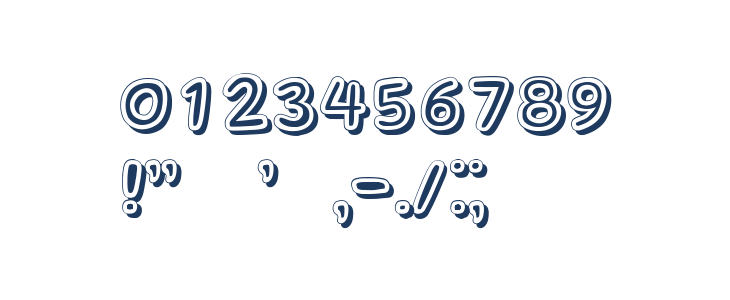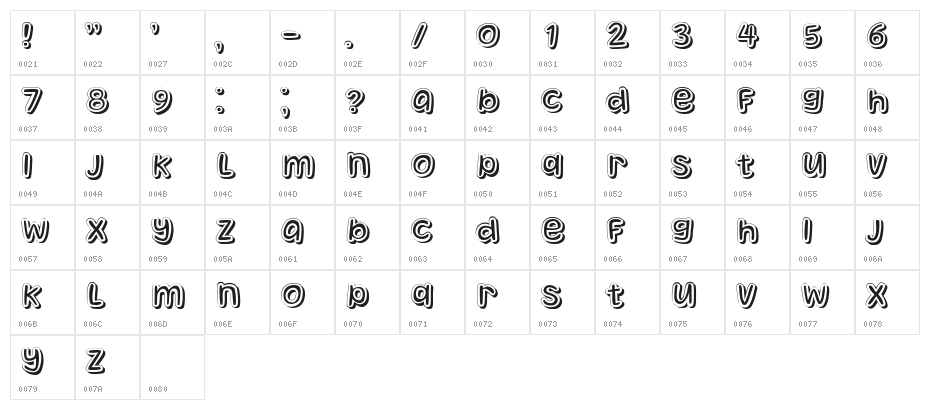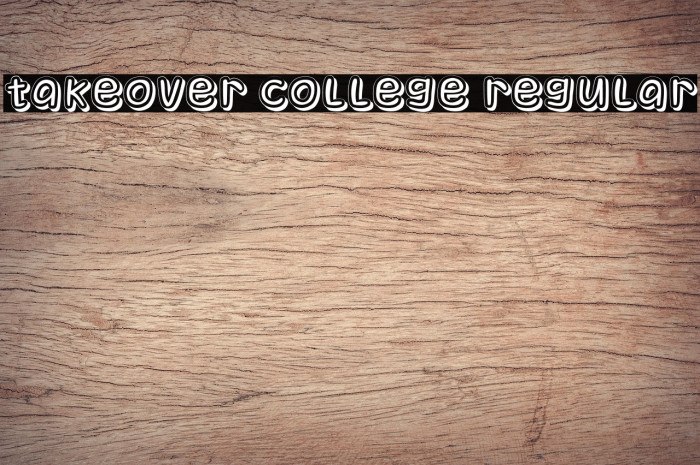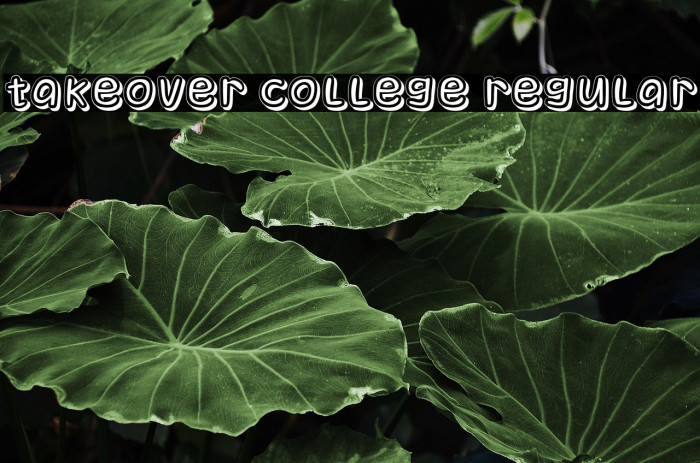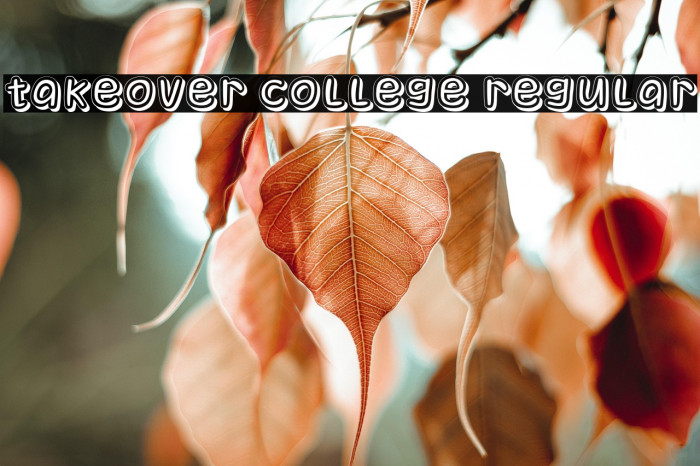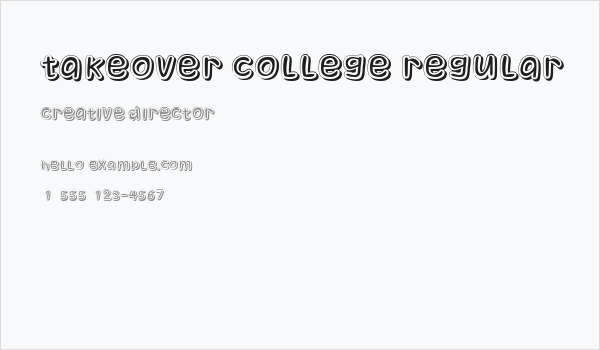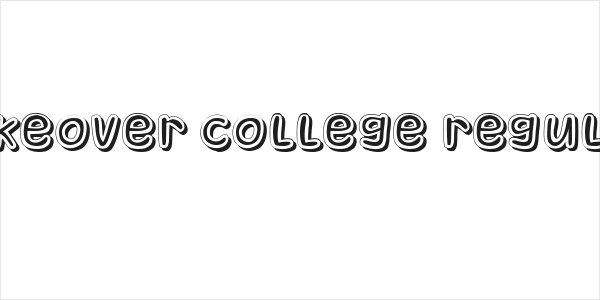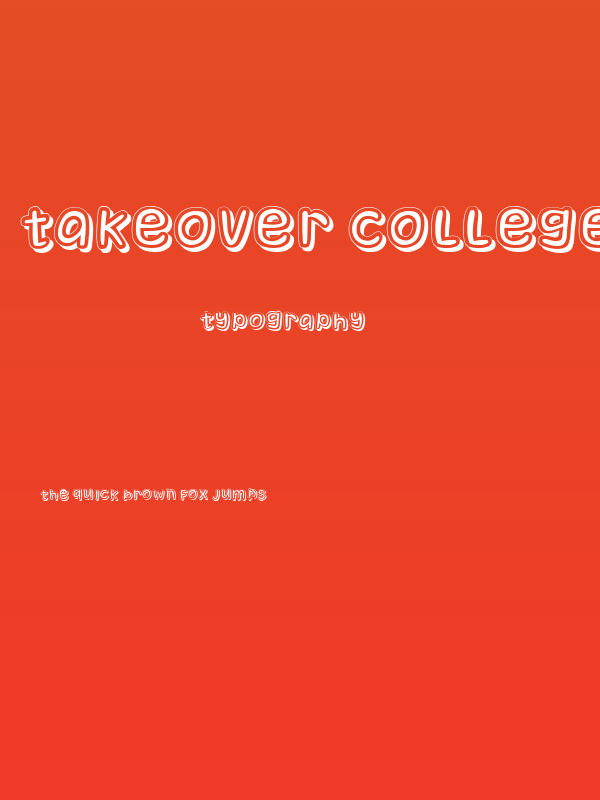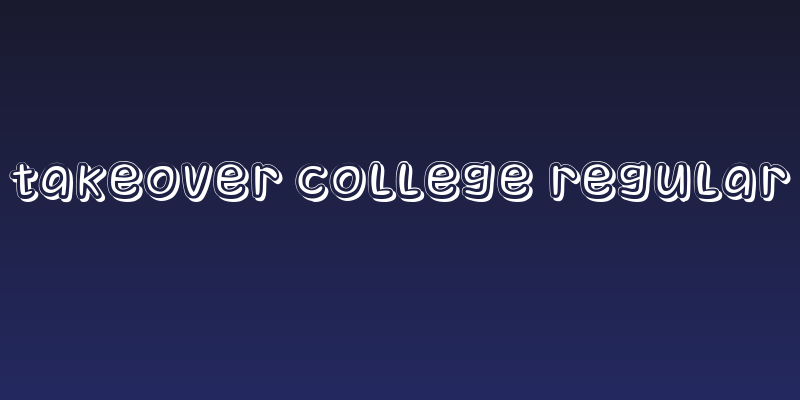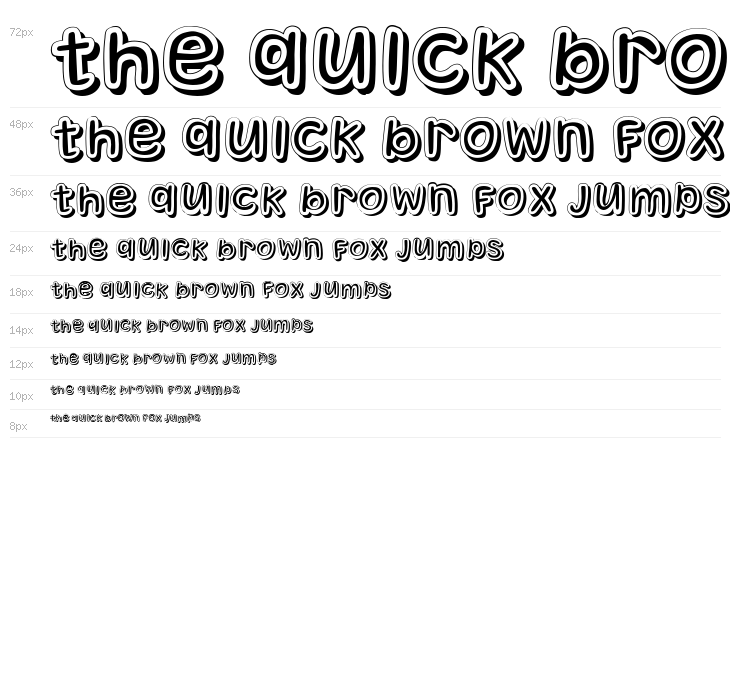
Takeover College Regular Font
Takeover College Regular Description
This font features a playful and bold design with a distinct outline that gives it a three-dimensional effect. The characters are rounded and have a consistent thickness, creating a friendly and approachable appearance. The uppercase and lowercase letters maintain a uniform style, while the numbers and special characters complement the overall aesthetic. The font's unique outline adds depth, making it stand out in various applications. Its whimsical nature makes it suitable for projects that require a fun and engaging look.
| Overall Style | Playful, Fun |
| Proposed Projects | Ideal for children's books, playful branding, event posters, and social media graphics. |